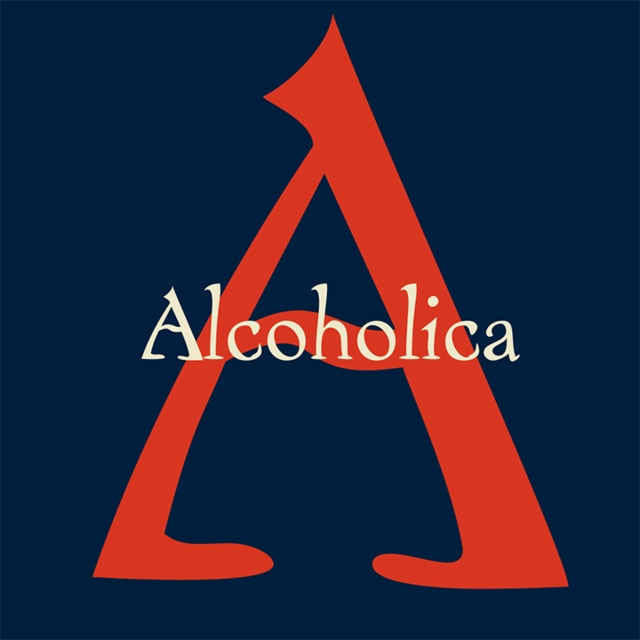
Alcoholica Font
Alcoholica Font is perfect for bar and tavern signage, brewery merchandise, cocktail menu designs, nightclub branding, distillery logos, pub advertising, liquor bottle labels, beer festival graphics, party event promotions, and entertainment venue marketing materials.
What makes Alcoholica Font so exciting is its bold, energetic character that perfectly captures the vibrant atmosphere of nightlife and social drinking culture through dynamic letterforms that pulse with the energy of late-night celebrations and good times shared with friends. This typeface embodies the spirit of social gathering and entertainment through its confident structure and party-ready aesthetic that immediately communicates fun, excitement, and memorable experiences. The font's compelling appeal stems from its ability to convey celebration, social connection, and entertainment value while maintaining professional quality for commercial hospitality applications.
Whether you're developing bar and restaurant identities, creating nightlife marketing campaigns, or designing entertainment venue materials, Alcoholica Font Free Download delivers authentic hospitality appeal and party atmosphere. This versatile typeface excels across all entertainment applications, from intimate cocktail lounge signage to large-scale festival banners, maintaining its celebratory character while ensuring excellent readability in various lighting conditions. The font's carefully crafted letterforms feature dynamic proportions and energetic details that create communications with genuine nightlife personality and entertainment credibility.
Hospitality industry professionals and entertainment venue designers consistently choose Alcoholica Font for projects requiring authentic nightlife appeal and social atmosphere positioning. Its energetic styling makes it particularly effective for bars, nightclubs, breweries, and entertainment venues seeking to communicate fun, social connection, and memorable experiences. The font's party-ready personality and hospitality authenticity create immediate appeal with social audiences while communicating values of celebration, community, and good times that are essential for success in the competitive entertainment and hospitality marketplace.